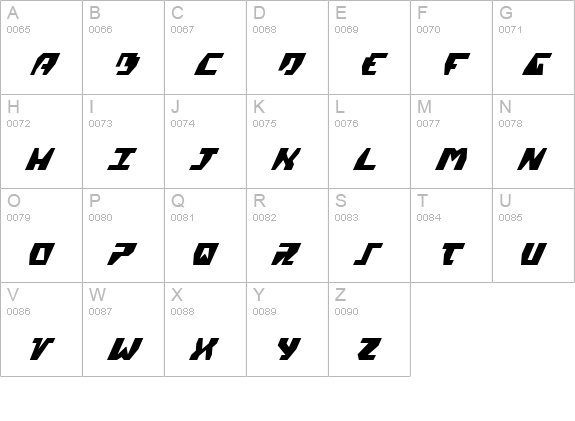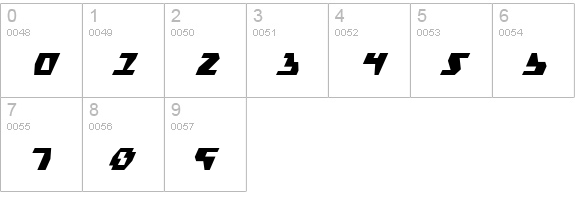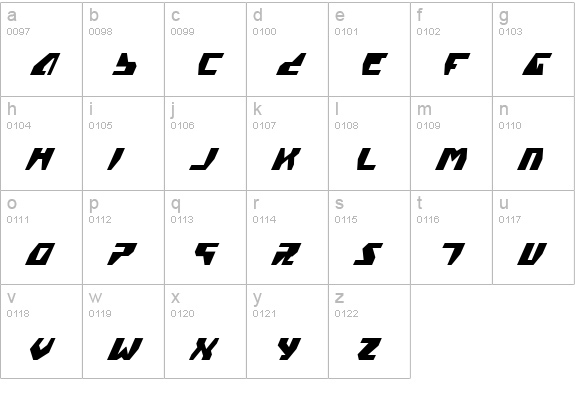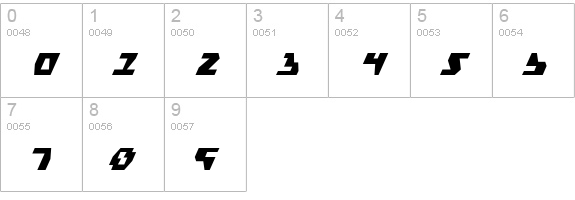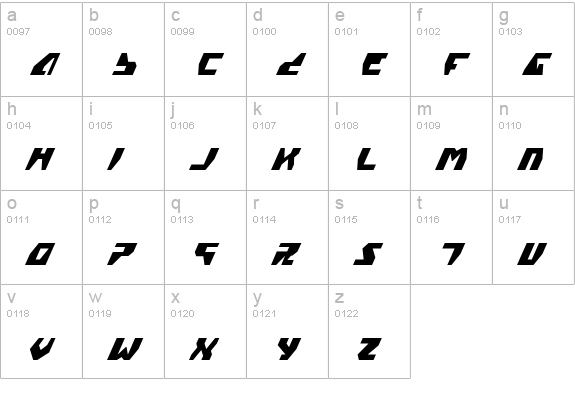
Gyrfalcon Condensed Italic is a distinctive, condensed-width, italic variant in the Gyrfalcon typeface family \xE2\x80\x94 well suited to design and typography projects.
Introducing Gyrfalcon Condensed Italic font - a sleek and modern typeface that exudes elegance and sophistication. With its condensed form and stylish italic design, Gyrfalcon brings a touch of flair to any project. The sharp, clean lines of this font make it perfect for creating a visual impact in branding, advertising, and editorial design. What sets Gyrfalcon Condensed Italic font apart is not only its striking appearance but also its versatility. Whether you're looking to add a touch of sophistication to a luxury brand or create a sleek and modern look for a tech company, Gyrfalcon has you covered. The best part? Gyrfalcon Condensed Italic font is completely free to download at FontsMarket.com. Now you can elevate your designs with this premium font without breaking the bank. Don't miss out on the opportunity to enhance your projects with the timeless elegance of Gyrfalcon Condensed Italic font.